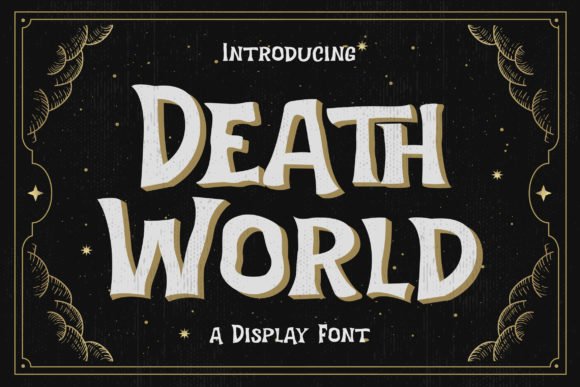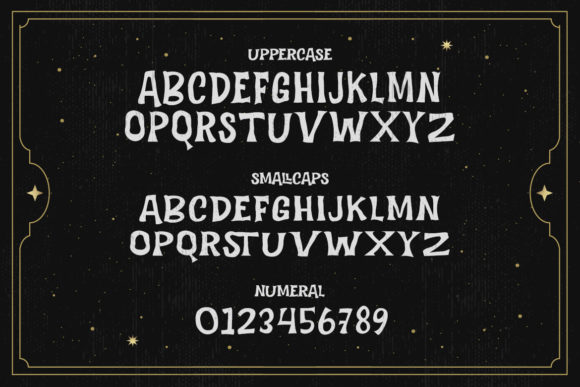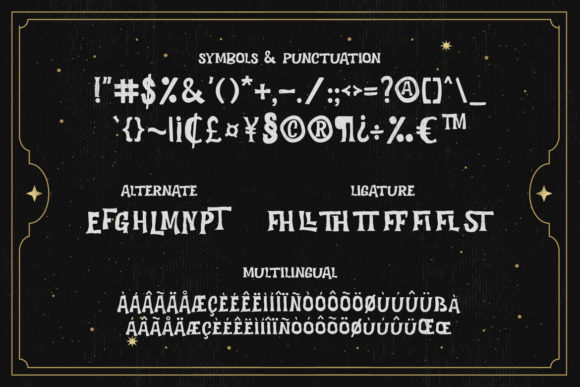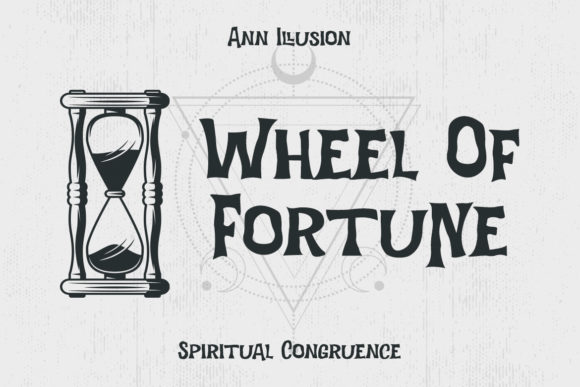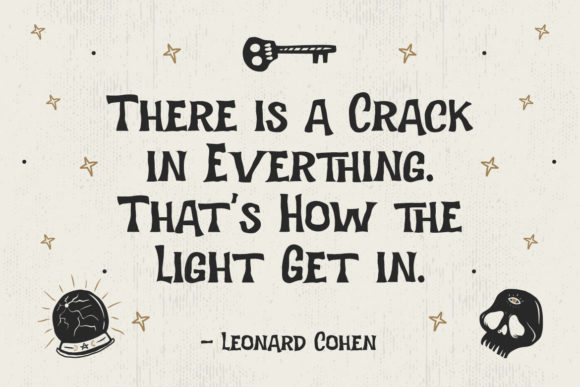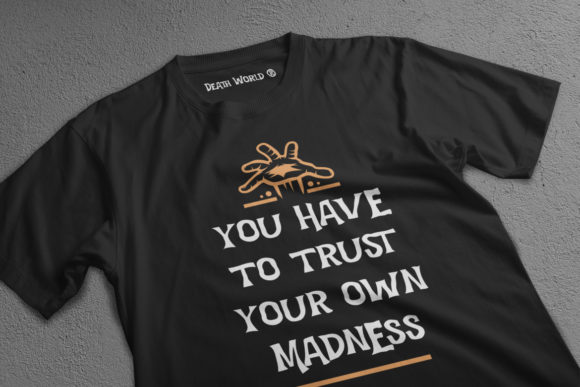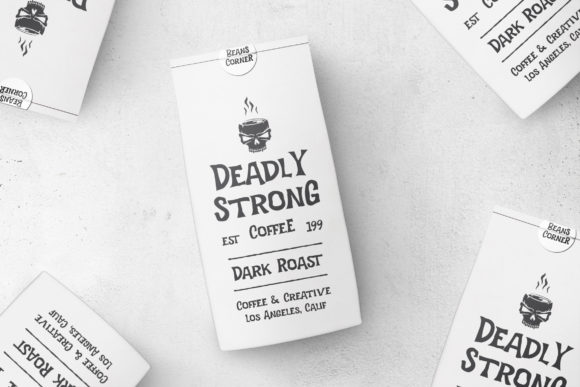
The Perfect Font for the Apocalypse: Introducing Death World Font
Have you ever been brainstorming a new project, only to be hit with a sudden wave of inspiration that leaves you breathless and eager to bring your idea to life? That’s exactly what happened to us when we first laid eyes on the Death World Font – a bold, rough textured and cool display font that screams ‘create something bold’.
Designed to make a statement, the Death World Font is more than just a font – it’s a visual representation of your creativity. With its uniquely shaped letters and imposing presence, it’s the perfect tool for designers looking to add a distinct touch to their creations. Whether you’re working on a sci-fi novel, a horror movie poster, or a futuristic video game, the Death World Font is sure to be a valuable addition to your toolkit.
- Unique Characteristics: Distressed, grungy, and weathered design with a post-apocalyptic theme
- Font Style: Display font with bold, condensed, and extended styles for added versatility
Death World Font Review
I’ve had the chance to dive into the “Death World Font” and here’s my honest take.
- Unique Design: The font has a distinct, dark aesthetic that’s sure to grab attention.
- Versatility: It can be used for various purposes, from gaming to horror-themed content.
- Well-Crafted Characters: Each glyph is carefully designed, making it a joy to read and use.
- Limited Character Set: The font lacks some essential characters, which might be a problem for extensive use.
- Not Suitable for Body Text: Due to its bold and dark nature, it’s better suited for titles and headlines.
- May Not Be Accessible: Some users might find the font difficult to read due to its complexity.
The “Death World Font” is a solid choice for those looking to add a touch of darkness and edginess to their design. While it has some limitations, its unique design and versatility make it a great option for specific projects. With some careful consideration and planning, this font can be a powerful tool in your design arsenal.
Tips for Getting the Most Out of Death World Font
Death World Font is best used for creating a bold, edgy look. To get the most out of it, use it sparingly and in combination with other bold fonts. You can also experiment with different font sizes and colors to create a striking effect.
Death World Font is commonly used for:
- Graphic novels and comic books
- Video game titles and menus
- Edgy marketing materials and advertisements
- Dark fantasy and horror-themed projects